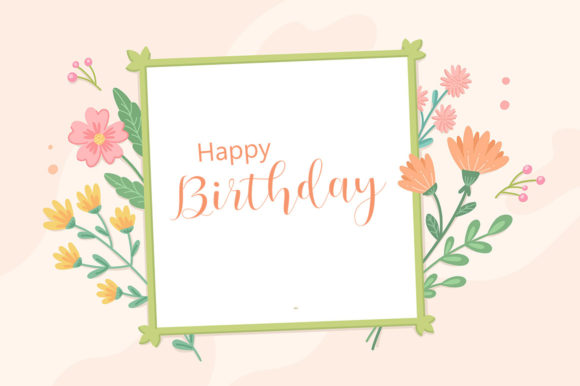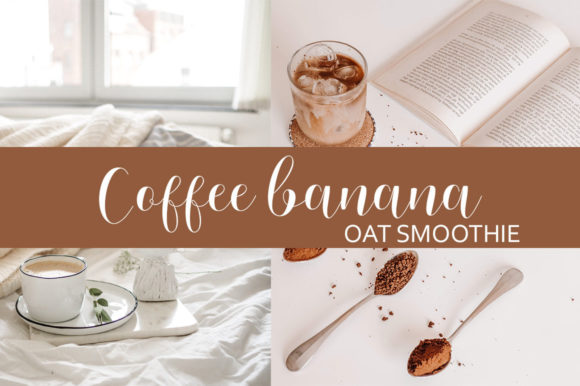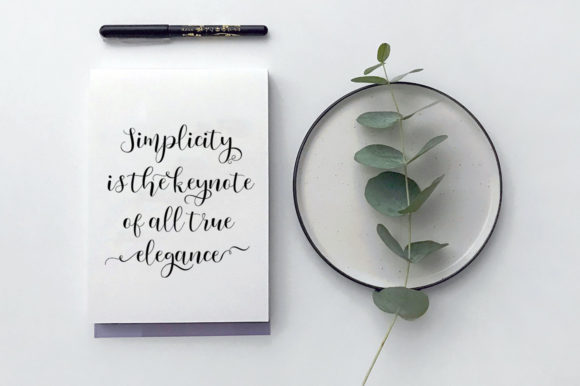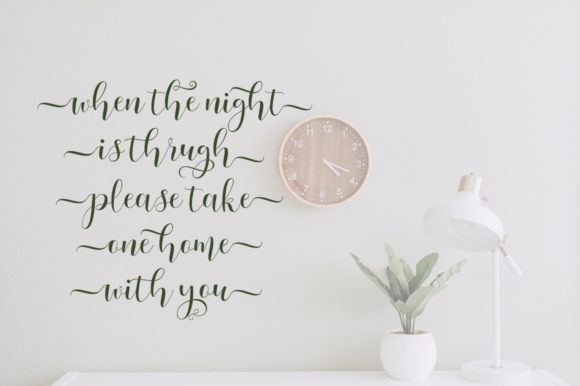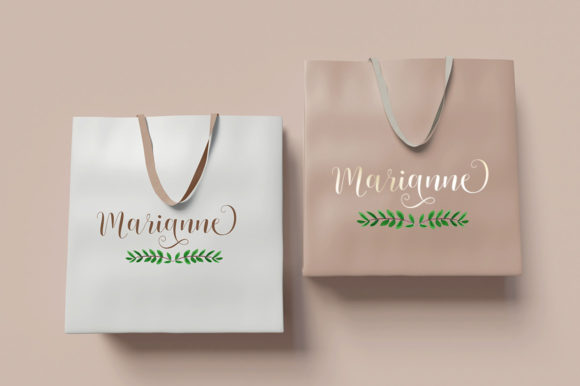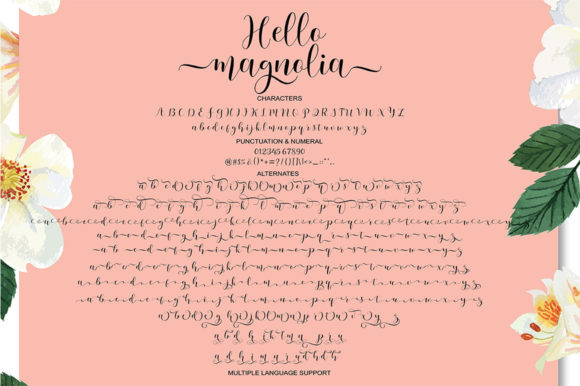
The Perfect Script Font for Your Next Creative Project
Have you ever been working on a design project, pouring over fonts and trying to find the perfect fit, only to stumble upon a font that makes your heart skip a beat? For me, that moment happened when I discovered the Hello Magnolia Font. Its elegant, refined script style is instantly recognizable and has a timeless charm that’s perfect for a wide range of projects.
Hello Magnolia Font is a versatile script font that’s ideal for logos, branding, invitations, stationery, wedding designs, social media posts, and more. Its classy and modern look makes it a valuable asset for designers looking to add a touch of sophistication to their work. With its PUA encoding, you can easily access all the glyphs and swashes, giving you even more creative freedom.
Hello Magnolia Font Key Features
- Font Family: Hello Magnolia is a modern script font with a unique, elegant design.
- Character Set: Includes a comprehensive set of characters, including uppercase and lowercase letters, numerals, punctuation marks, and special characters.
- Unique Characteristics: Features a flowing, cursive design with subtle flourishes, making it ideal for titles, headings, and other display text.
Hello Magnolia Font Review
Overall, I think Hello Magnolia Font is a charming addition to any design project. ✨ It has a classic, elegant feel that’s reminiscent of handwritten letters. The font is perfect for creating a warm and inviting atmosphere in your designs.
Here are some of the things that work well with Hello Magnolia Font:
- ✨ It’s highly legible, making it easy to read even at smaller font sizes.
- ✨ The font has a nice, subtle flair that adds character to your designs.
- ✨ It’s available in a wide range of weights and styles, giving you plenty of options for customizing your designs.
- ⚠️ The font may not be suitable for use in highly technical or formal documents, as it has a more casual feel.
- ⚠️ Some of the weights and styles may be a bit too ornate for certain design projects.
- ⚠️ The font may not be as versatile as some other fonts, as it’s best suited for use in certain contexts (e.g. invitations, greeting cards, etc.).
Overall, I think Hello Magnolia Font is a solid choice for designers who want to add a touch of elegance and whimsy to their projects. While it may not be the best choice for every project, it’s definitely worth considering for the right design.
Tips for Getting the Most Out of “Hello Magnolia Font”
For the most effective use of “Hello Magnolia Font”, consider the following tips:
- Use it for titles and headings to add a touch of elegance.
- Pair it with a clean and minimalist design to let the font shine.
“Hello Magnolia Font” is ideal for:
Alternatives to Hello Magnolia Font
Great Vibes is a modern, elegant script font perfect for creating a sophisticated and stylish look. It’s ideal for use in branding, packaging, and advertising materials where a touch of elegance is required. Compared to Hello Magnolia, Great Vibes is more refined and less playful, making it suitable for more formal designs.
Alex Brush is a handwritten font with a unique, artistic feel. It’s perfect for use in creative projects, such as invitations, menus, and editorial designs where a personal touch is desired. Compared to Hello Magnolia, Alex Brush is more rustic and less polished, making it suitable for designs that require a more organic feel.
Carolyna Pro is a modern, elegant script font with a touch of sophistication. It’s ideal for use in high-end branding, packaging, and advertising materials where a sense of luxury is required. Compared to Hello Magnolia, Carolyna Pro is more refined and less playful, making it suitable for more formal designs.